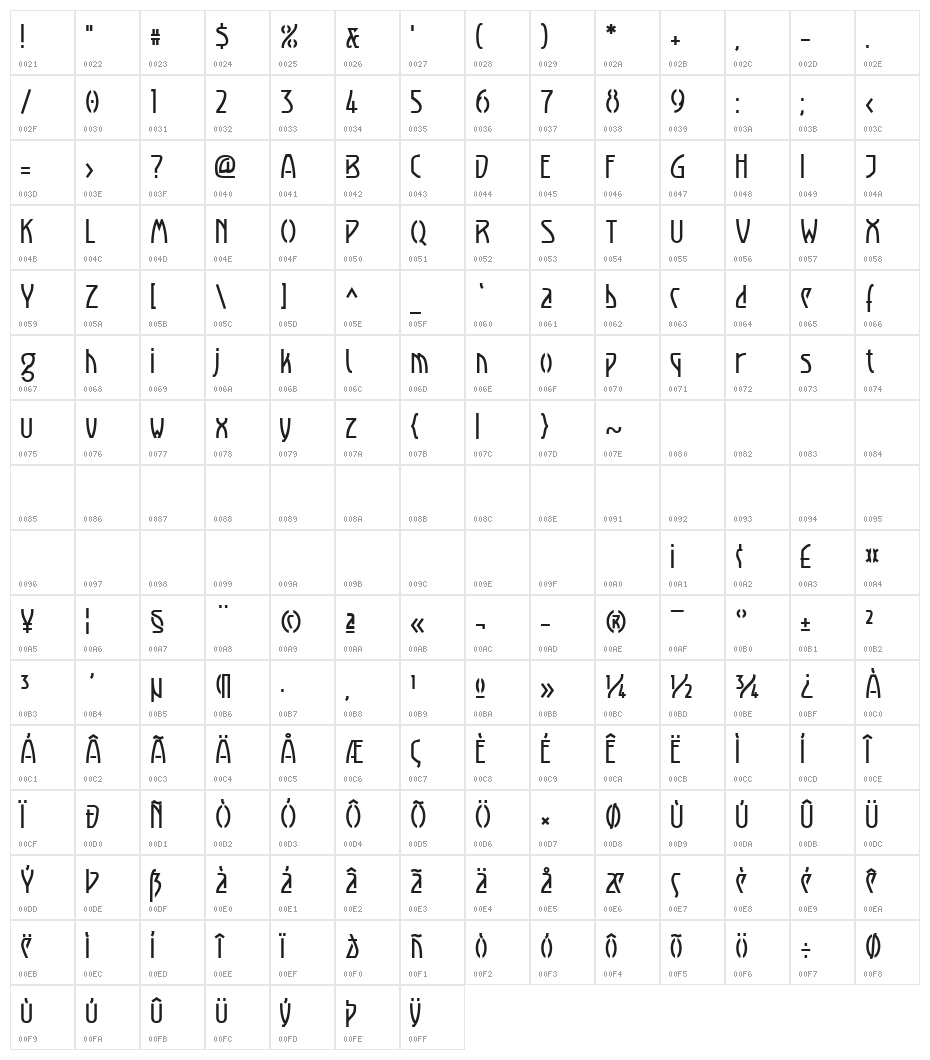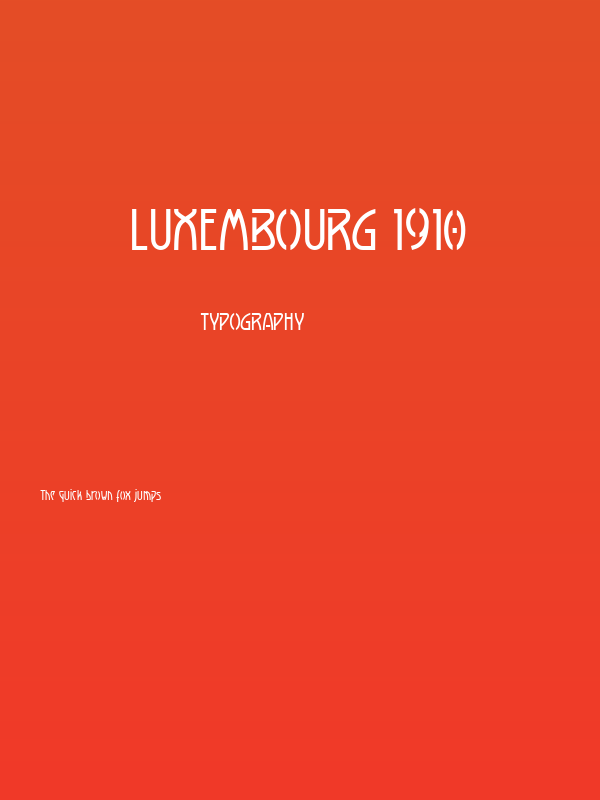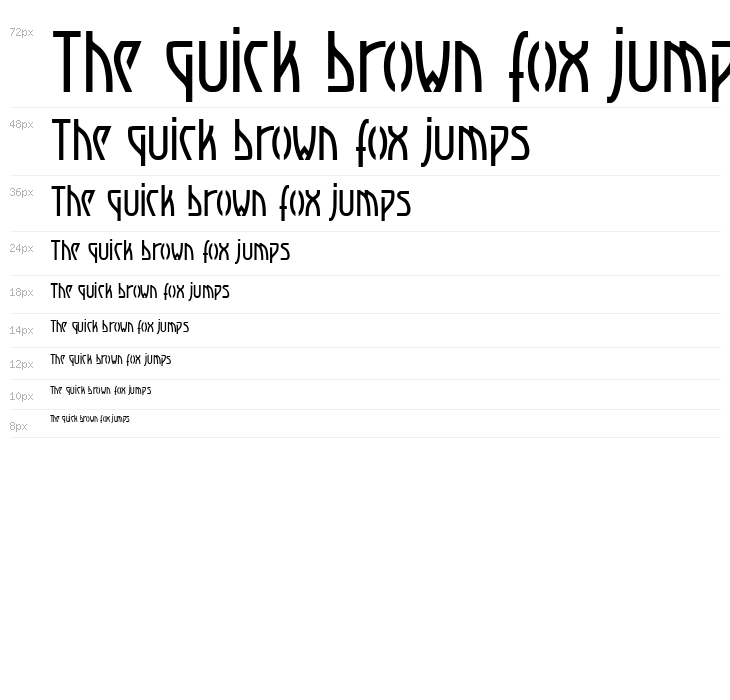
Luxembourg 1910 Font
Luxembourg 1910 Description
This font features a unique and modern design with a geometric flair. The characters are constructed with a combination of straight lines and curves, creating an eye-catching and futuristic appearance. The uppercase letters are bold and angular, while the lowercase letters maintain a consistent style with slightly softer edges. Numbers and special characters follow the same design principles, ensuring a cohesive look across all elements. The font's distinct style makes it suitable for projects that require a contemporary and innovative touch.
Proposed ProjectsIdeal for branding, advertising, and digital media projects that require a modern and distinctive look.